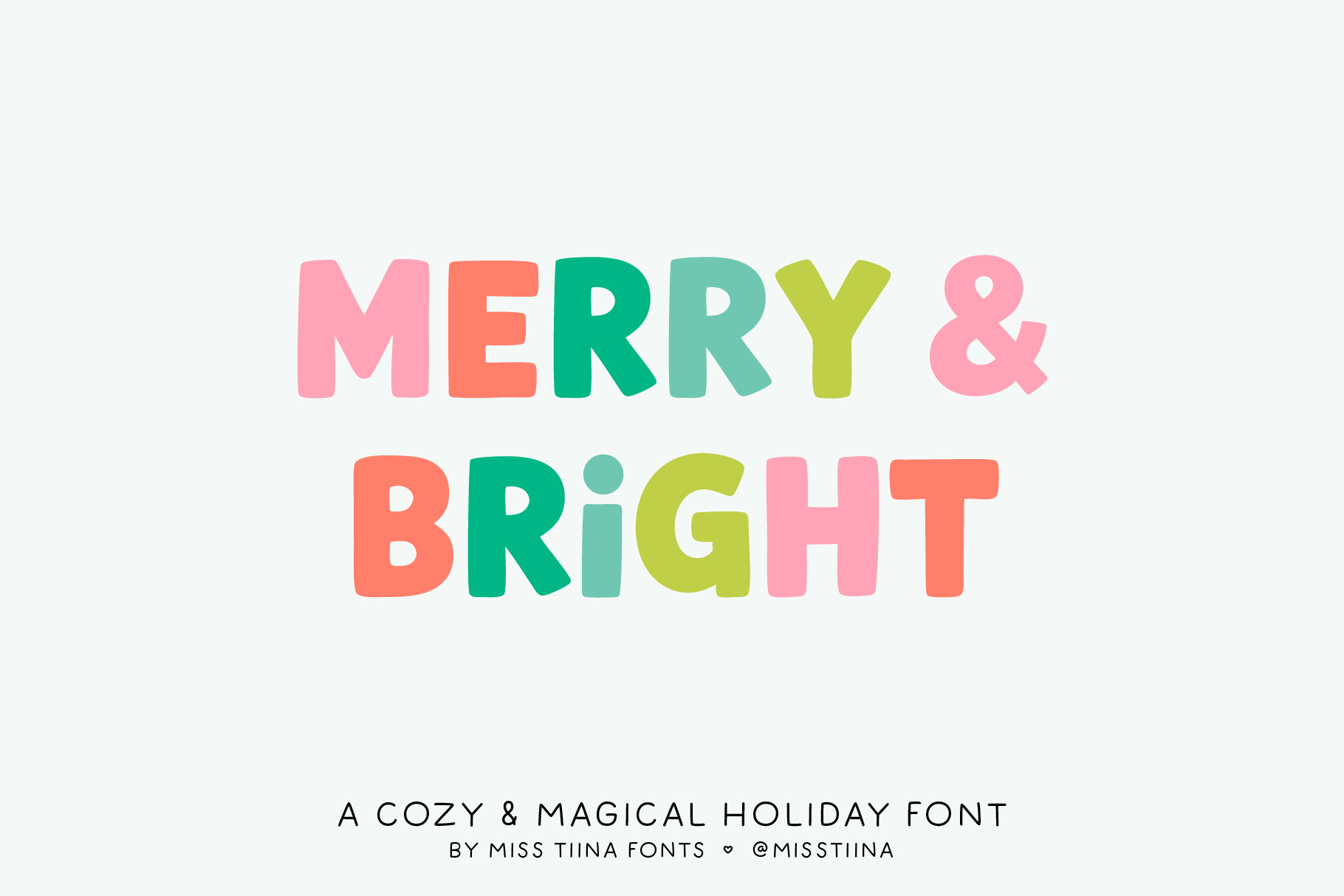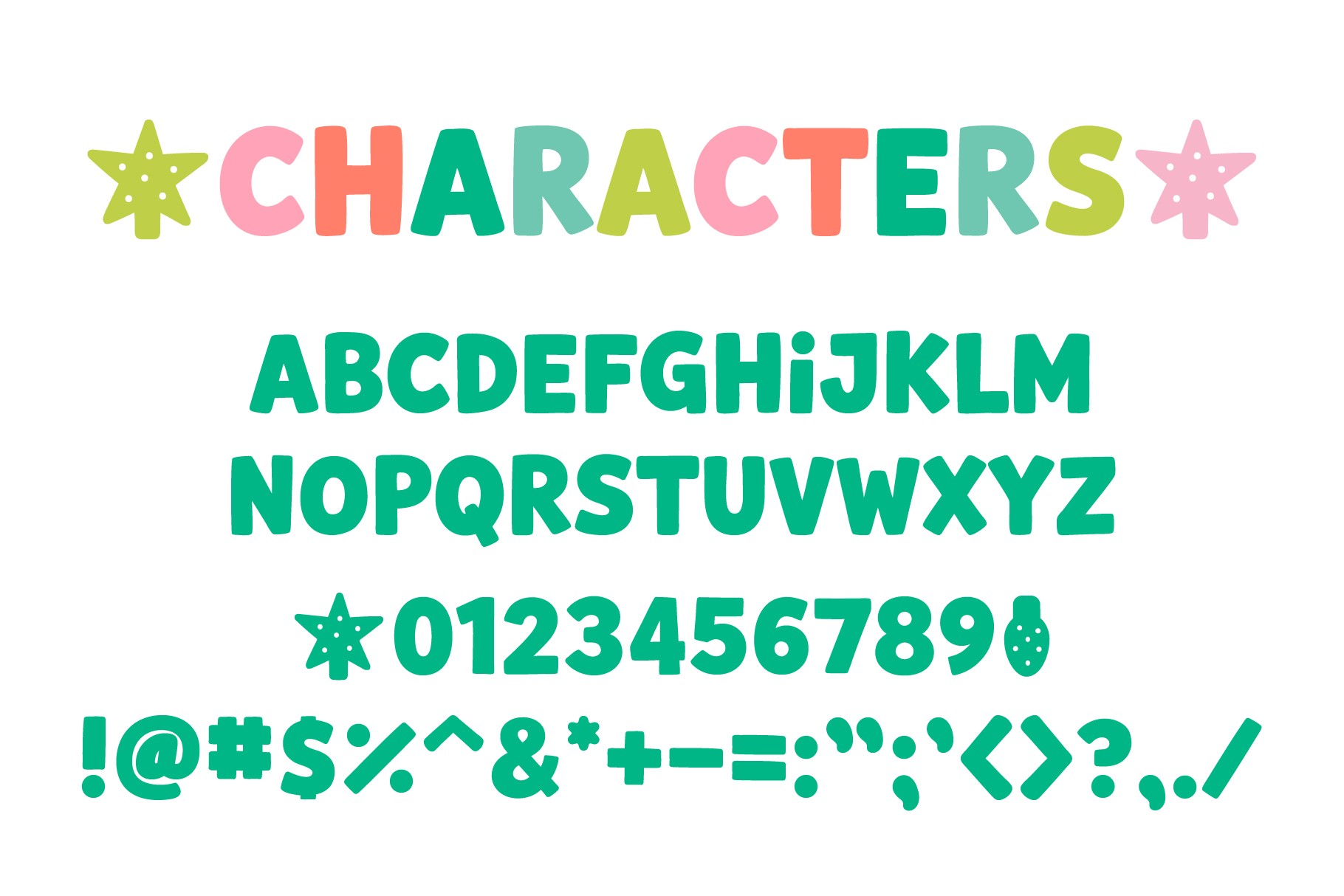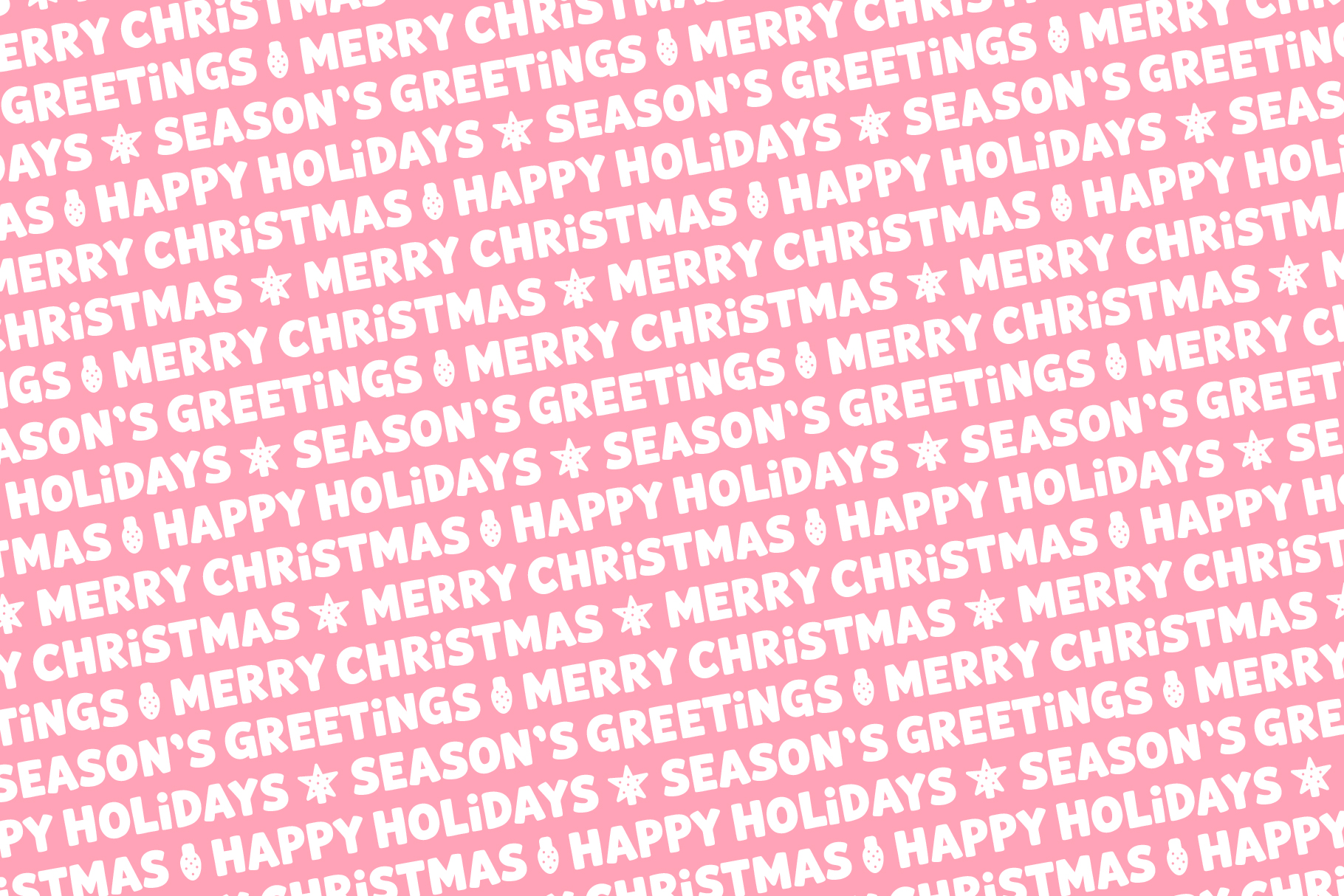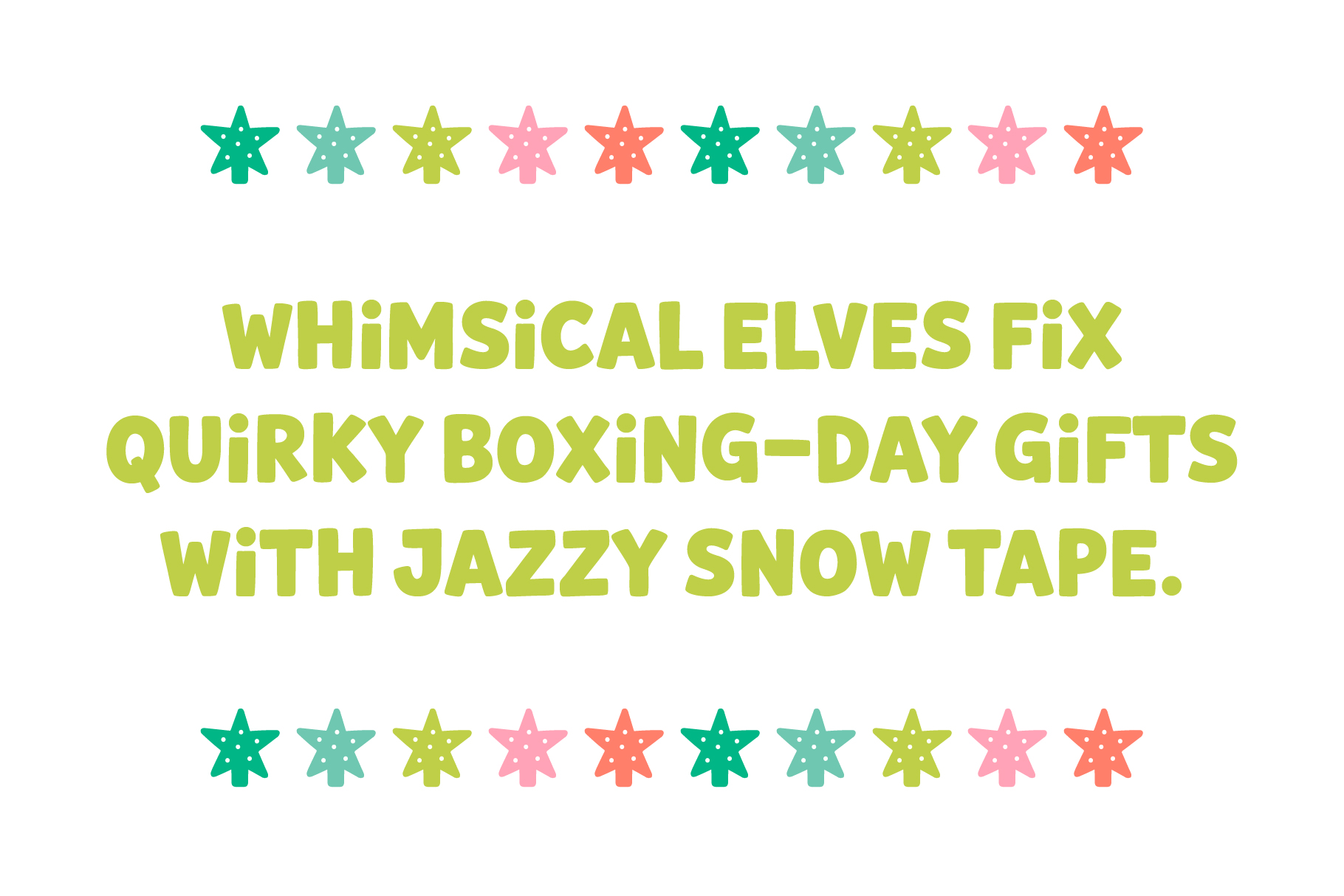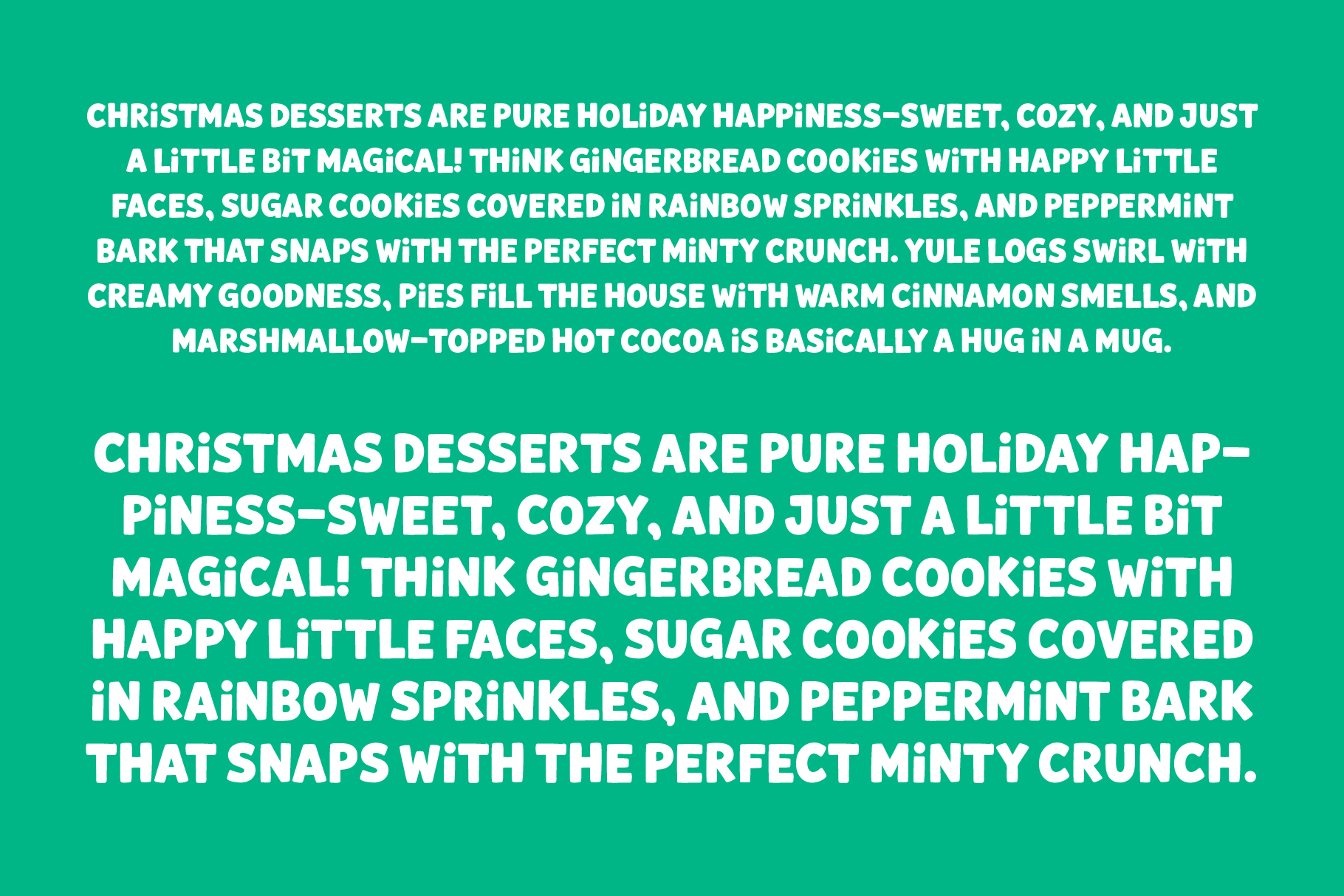
MTF Merry & Bright
Merry & Bright is a sweet, chubby, and cheerful display font that brings cozy holiday charm to every project. With smooth rounded letters and a playful, hand-crafted feel, it’s perfect for Christmas cards, festive crafts, stickers, planners, and all your holly-jolly creations. Cute, friendly, and full of seasonal magic — this font is ready to make your designs merry and bright!